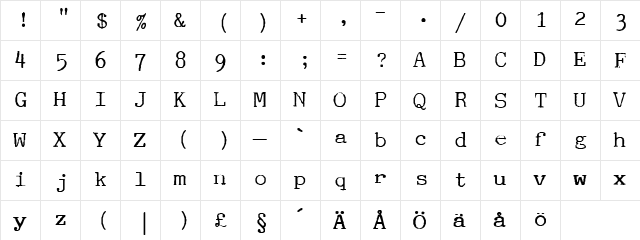
Silfv鮳 Skrivmaskin Silfv鮳 Skrivmaskin
Design Context for Silfv鮳 Skrivmaskin Typeface
Silfv鮳 Skrivmaskin takes a measured approach to typography — its balanced proportions and neutral character make it a reliable workhorse for both digital and print work.